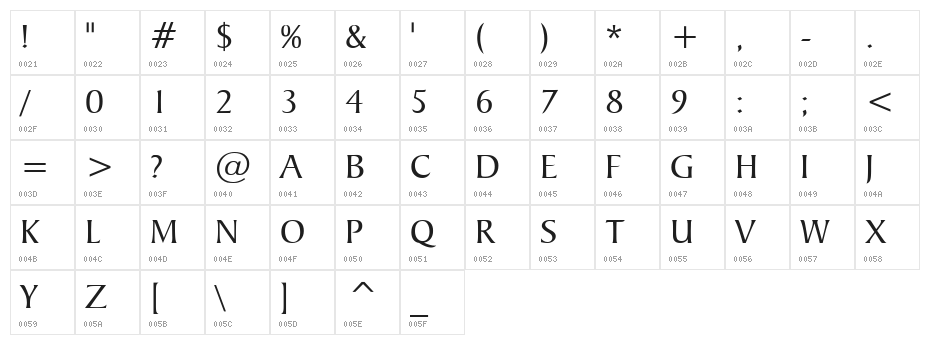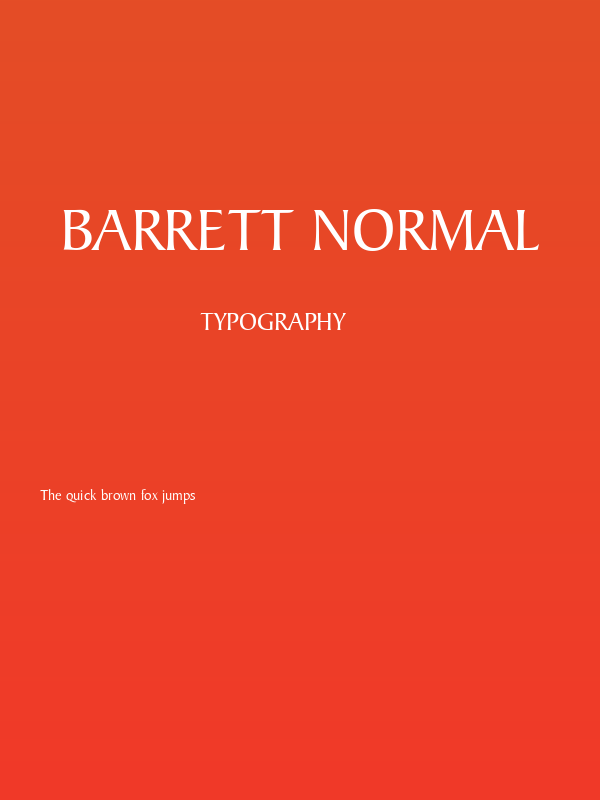
Barrett Normal Font
Barrett Normal Description
This font features a classic serif style with elegant and refined strokes. The uppercase letters are tall and commanding, while the lowercase letters maintain a balanced and harmonious appearance. The numerals are clear and distinct, making them easily readable. The special characters are well-integrated, complementing the overall aesthetic. The font's design is characterized by moderate contrast in stroke thickness, providing a sophisticated and timeless look. It is suitable for a variety of applications, offering versatility and readability.
Overall StyleClassic
Use CaseHeadlines, Body text, Logos
Proposed ProjectsIdeal for editorial design, book covers, formal invitations, and branding projects that require a touch of elegance.